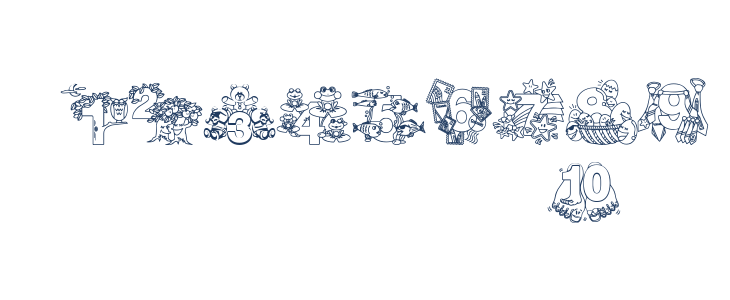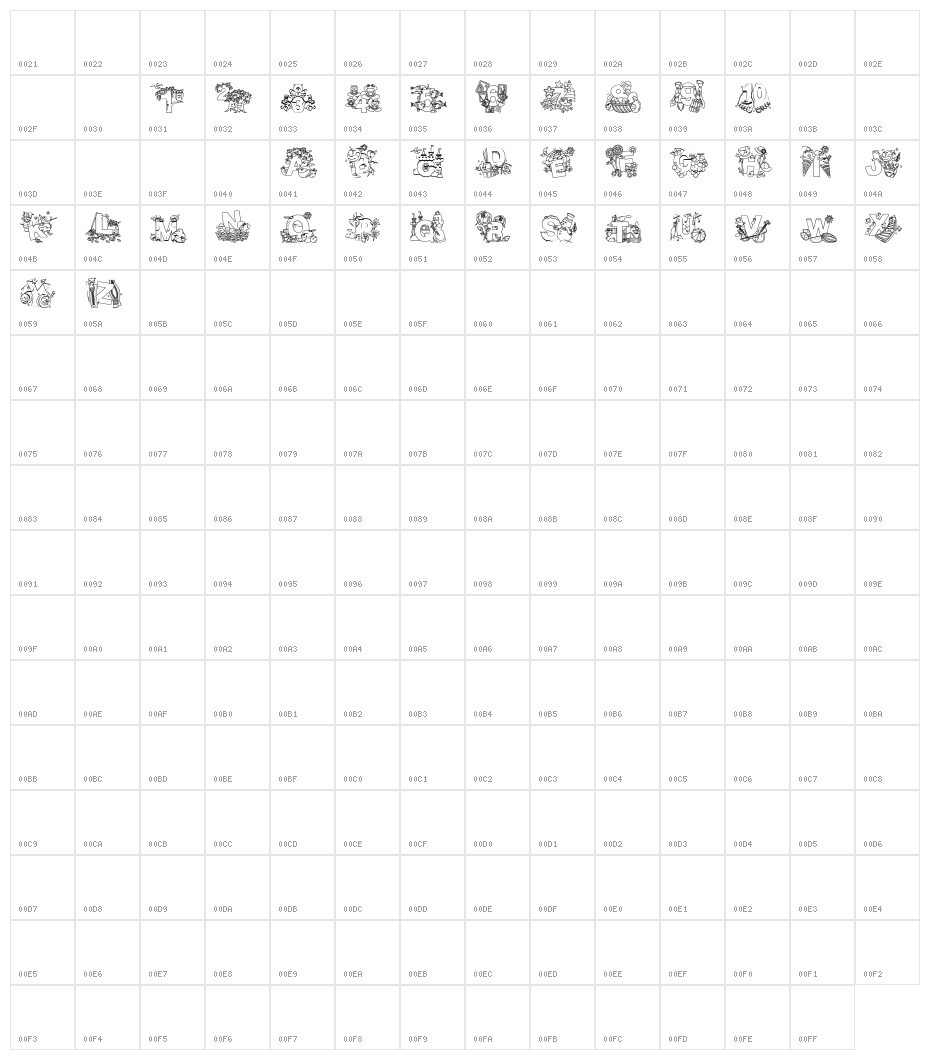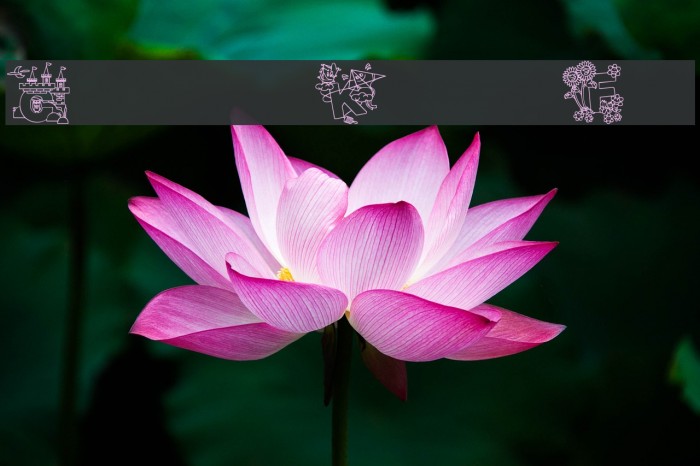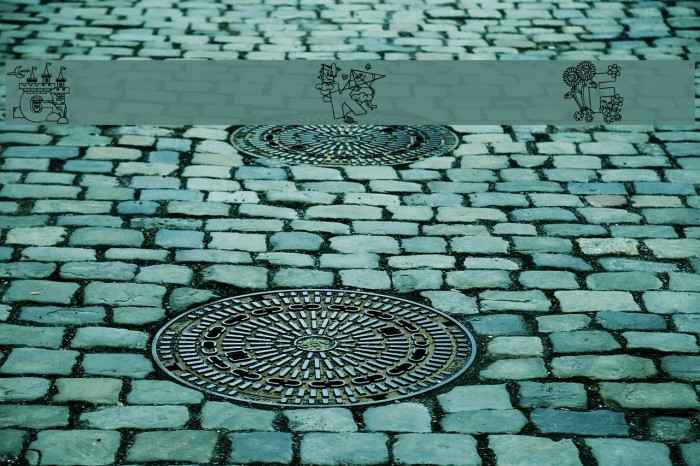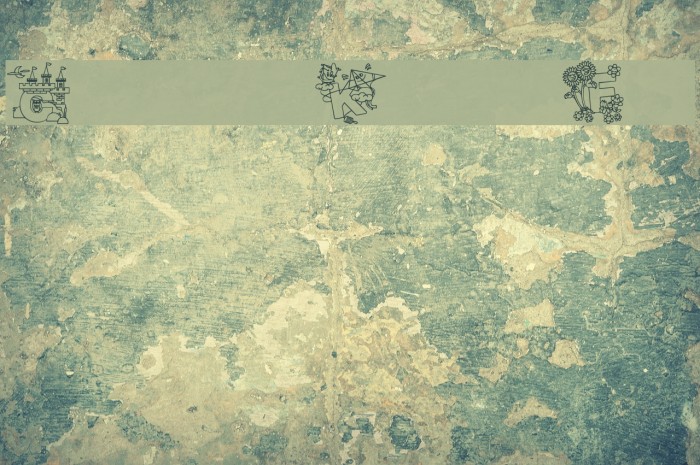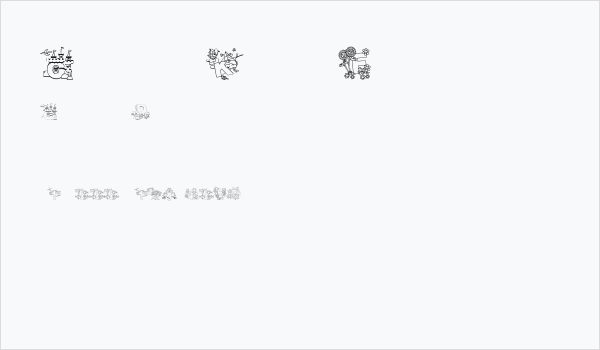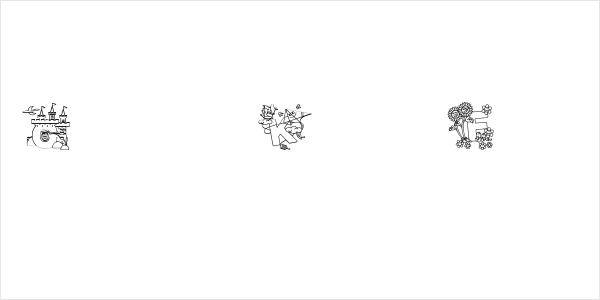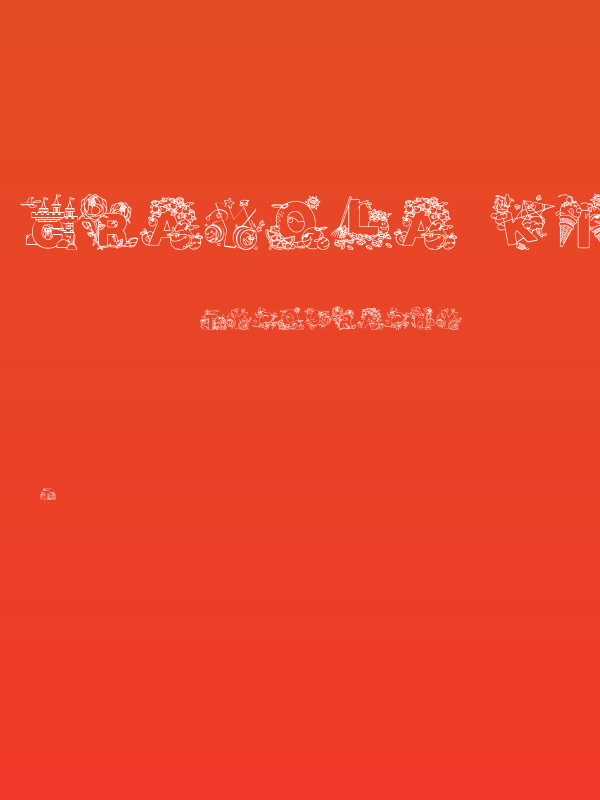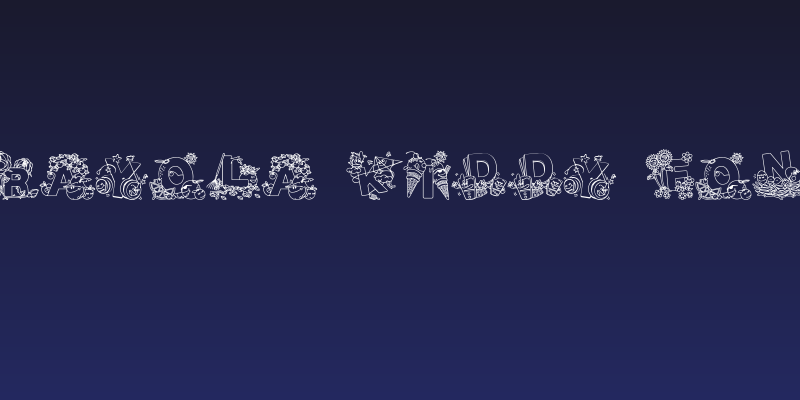
Crayola Kiddy Font Font
Crayola Kiddy Font Description
This playful and whimsical font features each character adorned with charming illustrations, making it perfect for children's projects. The letters and numbers are creatively integrated with various elements like animals, plants, and playful motifs, adding a delightful and engaging touch. The style is highly decorative, with each character offering a unique visual story. The intricate designs make it suitable for projects that aim to capture attention and evoke a sense of fun and creativity.
| Overall Style | Playful, Whimsical, Decorative |
| Use Case | Headlines, Posters, Children's materials |
| Proposed Projects | Ideal for children's books, educational materials, playful posters, and creative invitations. |